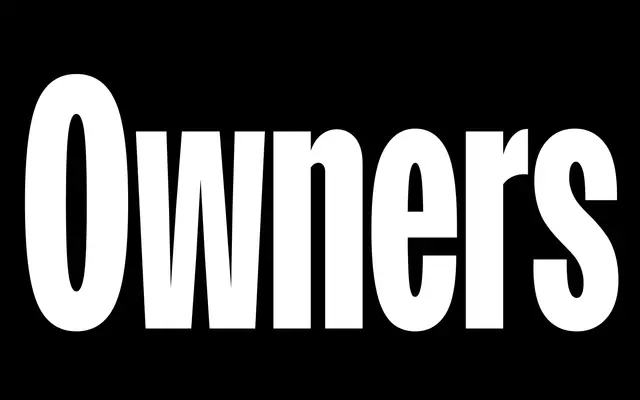
Owners
MCKL · Jeremy Mickel · 2021
A 98-style display family by Jeremy Mickel rooted in Los Angeles hand-painted signage, spanning seven widths from XXNarrow to XXWide across seven weights with matching italics.
Drawing from the International Style grotesque tradition as reinterpreted by vernacular LA signmakers, the family captures the quirk and warmth of letterforms stretched to fill irregular spaces. Seven widths run from XXNarrow to XXWide, each with seven weights from XLight to XBlack and matching italics, offering 98 styles in the core widths family. Tight default spacing gives it a logo-like density at display sizes, whilst a separate Text subfamily extends usability down to smaller settings.
Rooted in International Style sans-serif letterforms but filtered through Los Angeles vernacular hand-painted signage, giving it an expressive, warm quality distinct from neutral grotesque revivals.